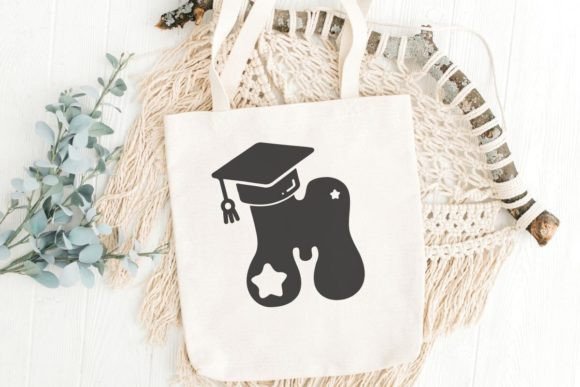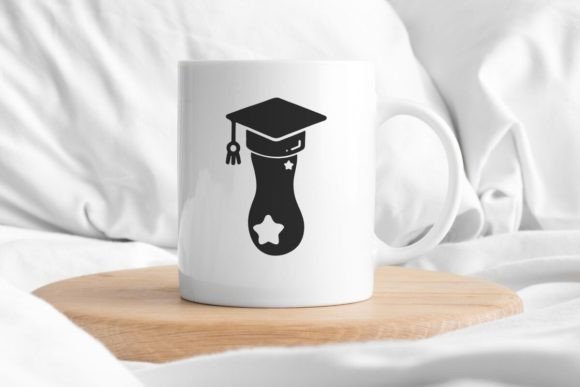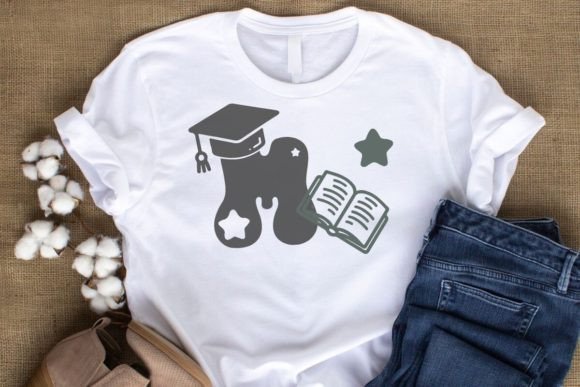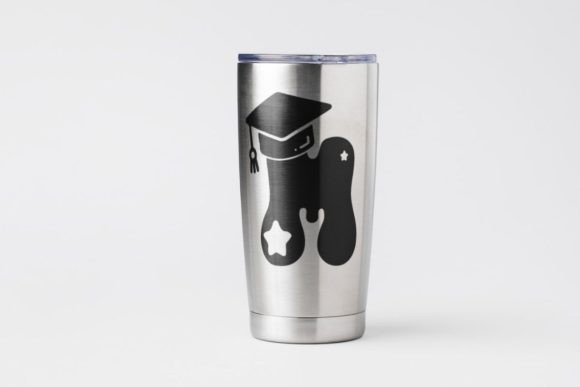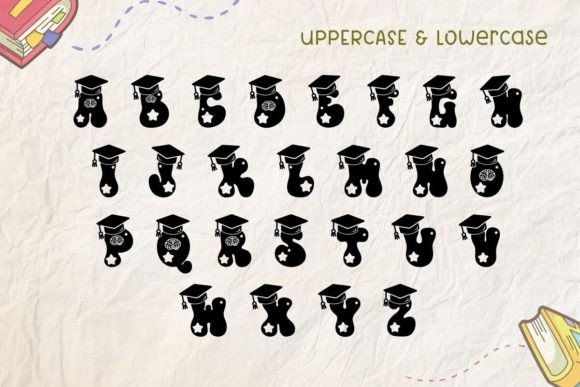
Introduction to Rank Font
Rank is a cute decorative font adorned with graduation-themed elements such as stars, graduation hut, glasses, etc.
Its quirky design adds fun to any project Perfect for creating various new designs to match your product such as banners, content, mugs, cards, shirts, stationery, social media posts, and more.